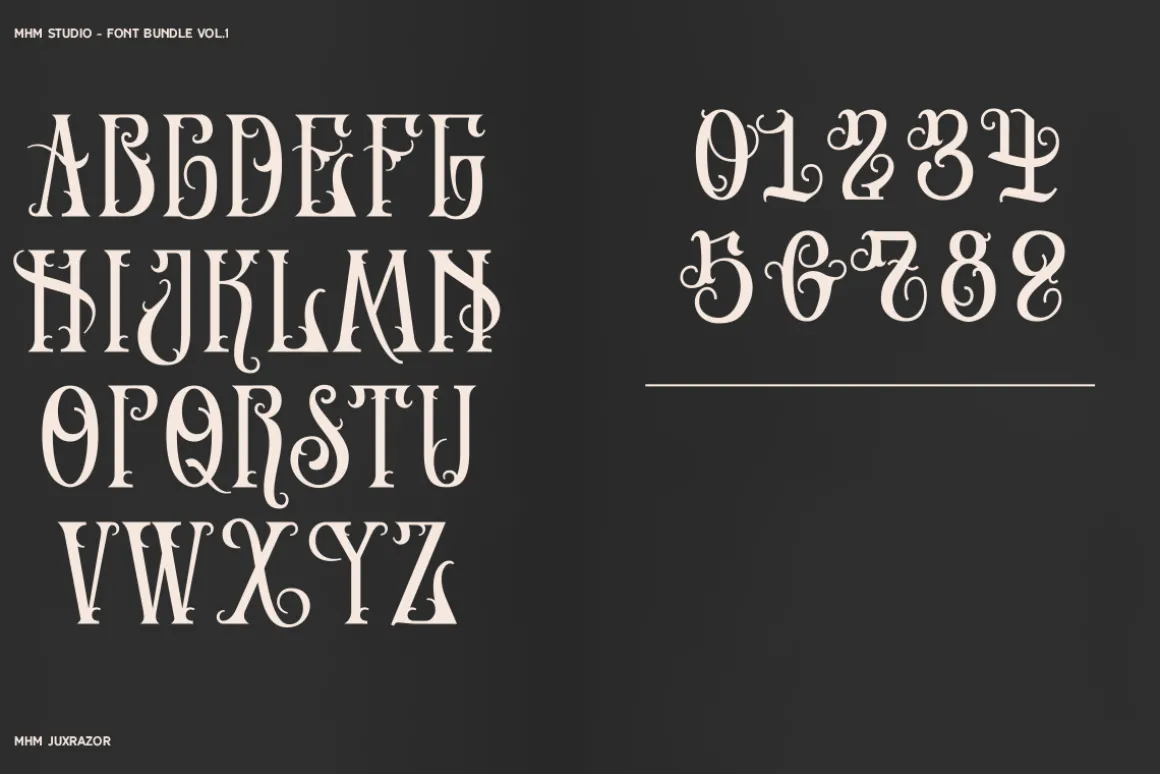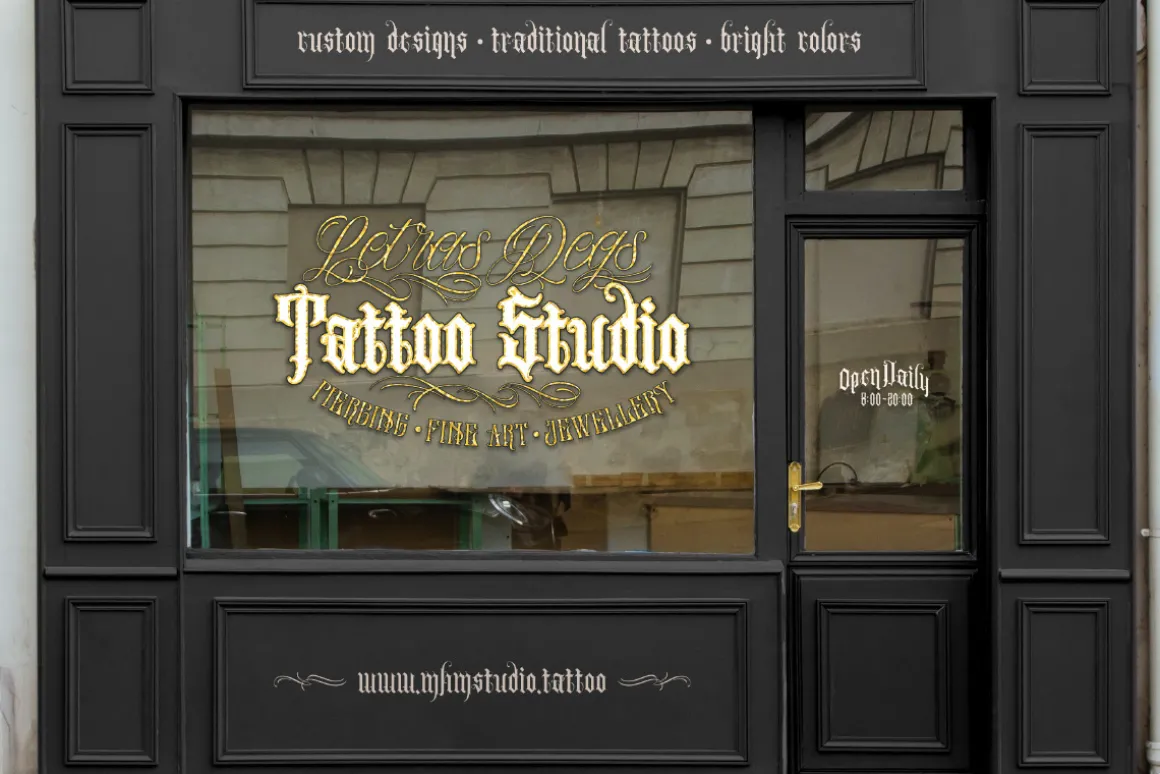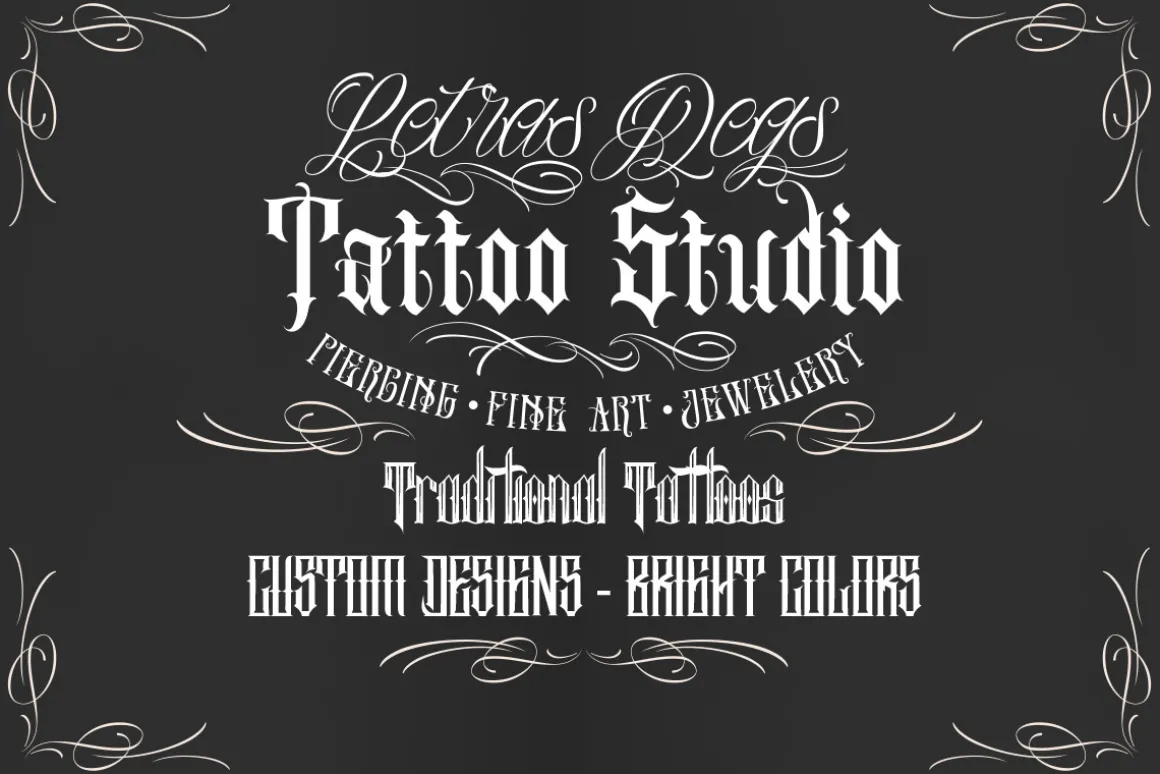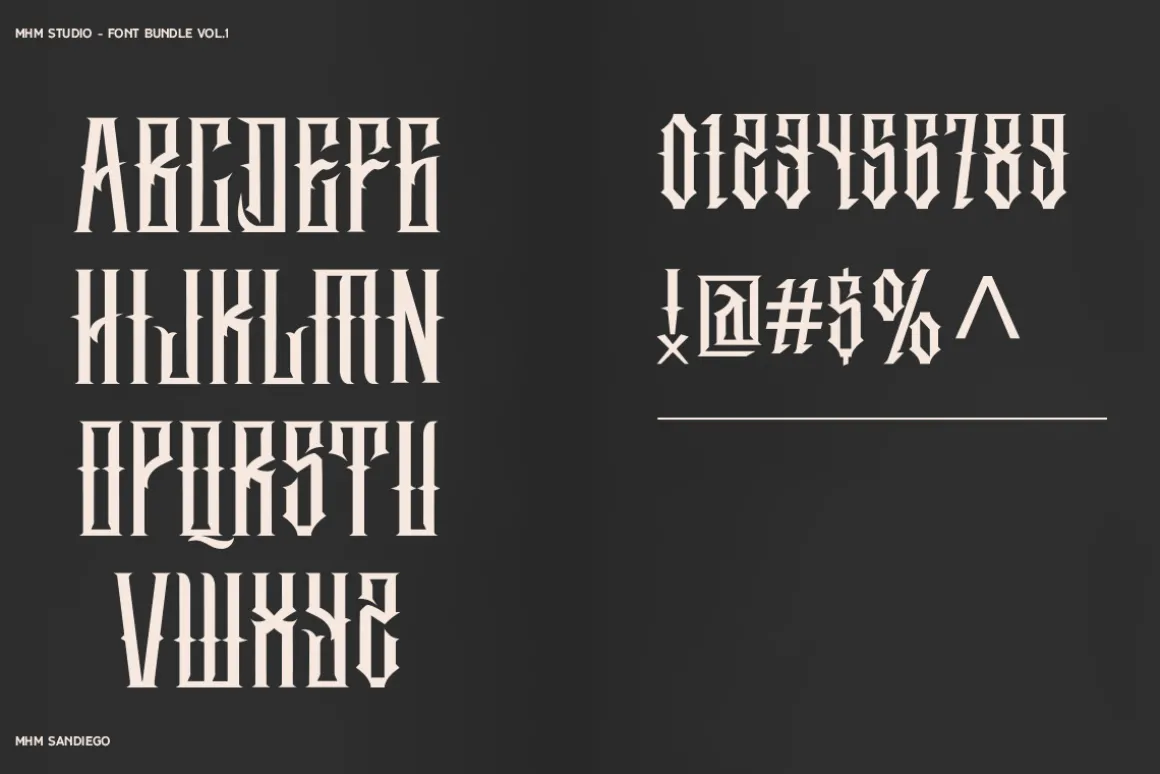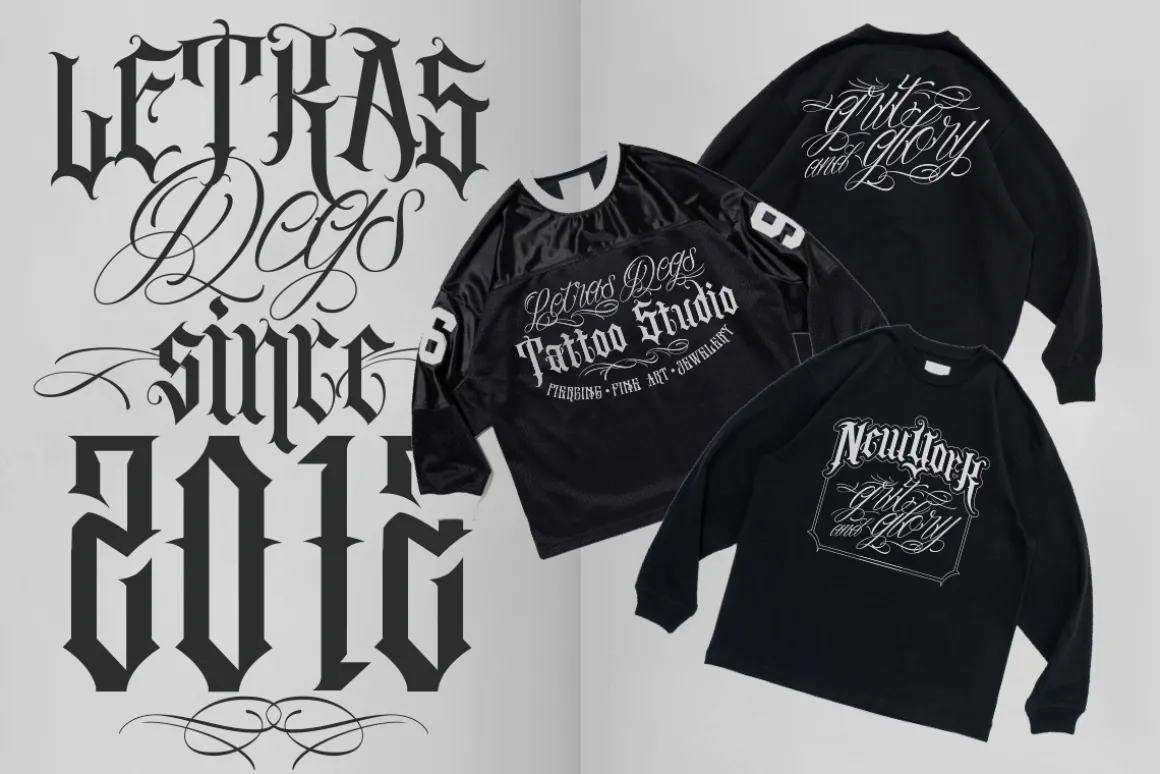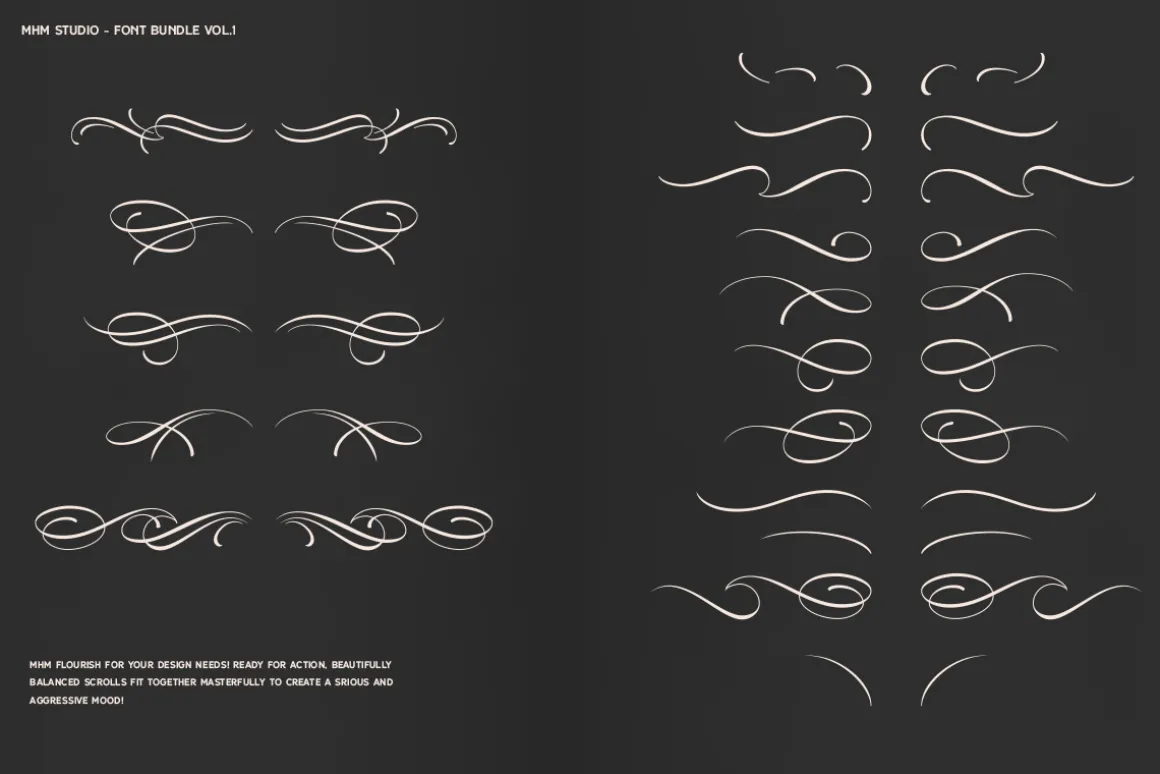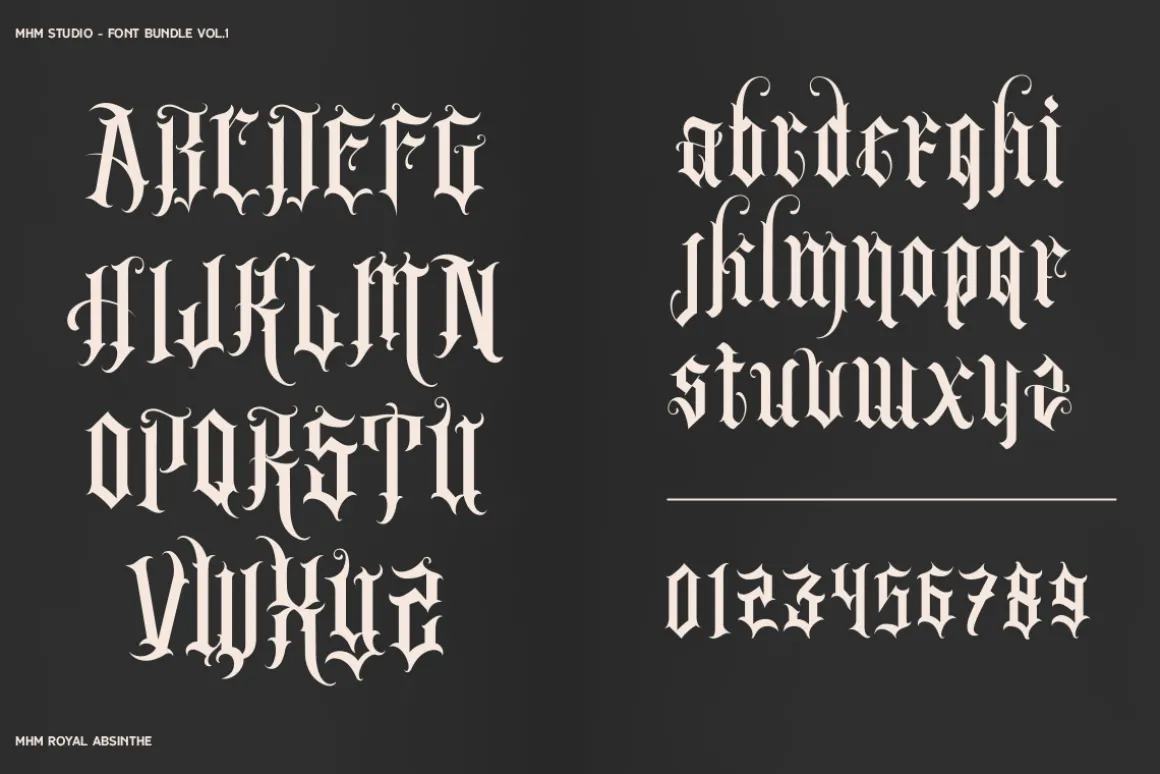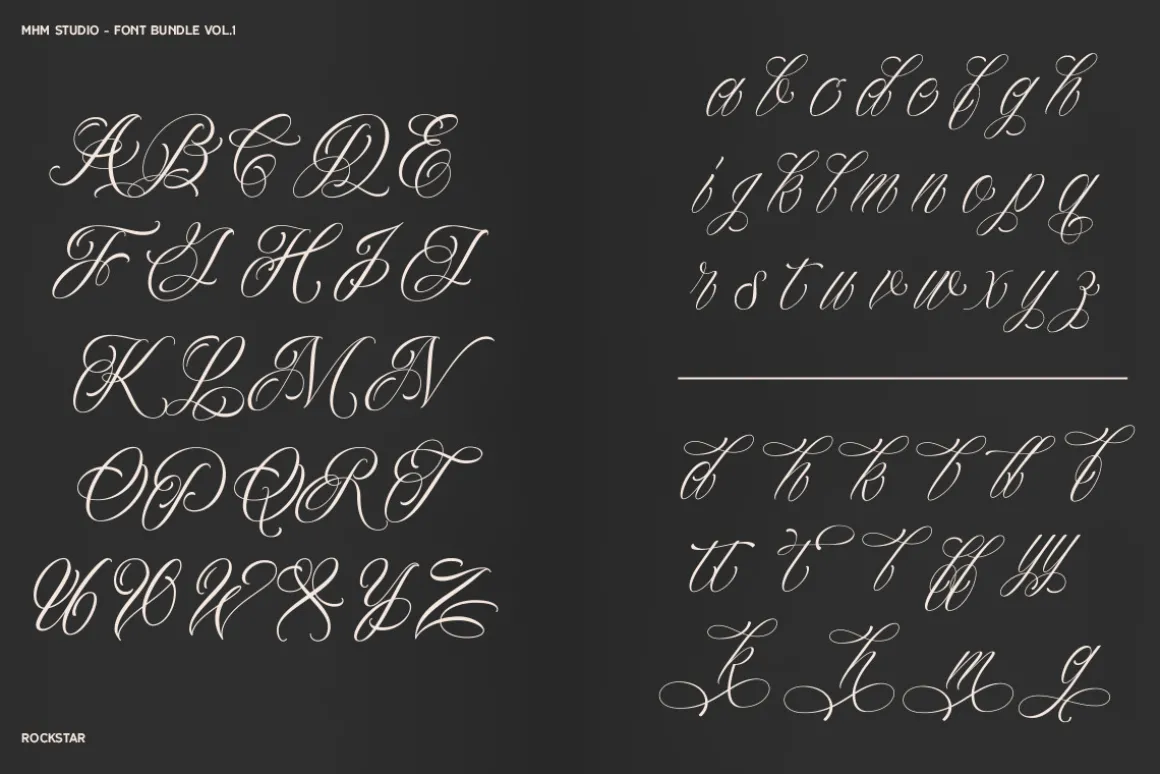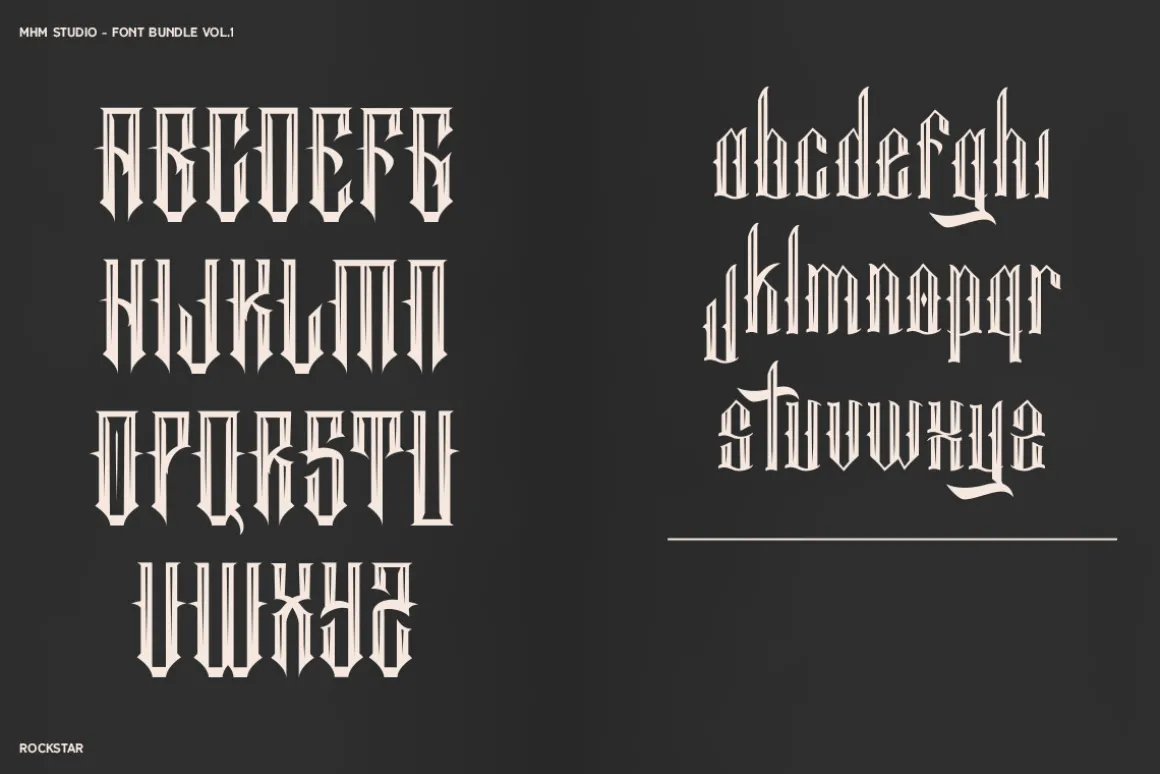
MHM Font Bundle Vol.1
MHM Font Family includes 5 fonts that have different styles from each other but at the same time perfectly paired when used together. MHM offers four display fonts, one script font, and one extra flourish in the form of a font. MHM Font Family Collection was designed carefully to create elegant typographic works. It would be a perfect choice to design posters, affiches, logos, t-shirt and magazine prints, eye-pleasing typographic designs and more.
MHM JuxrazorMHM SandiegoMHM Royal AbsintheMHM Neighborhood 2Rockstar